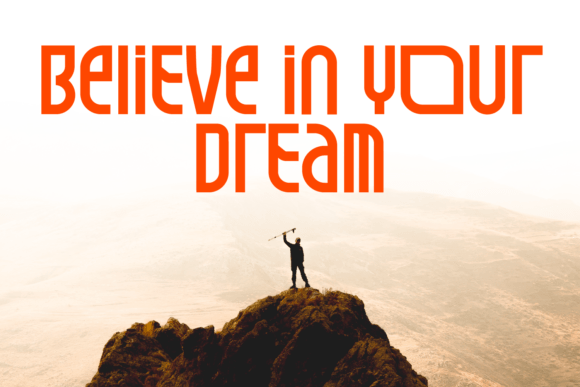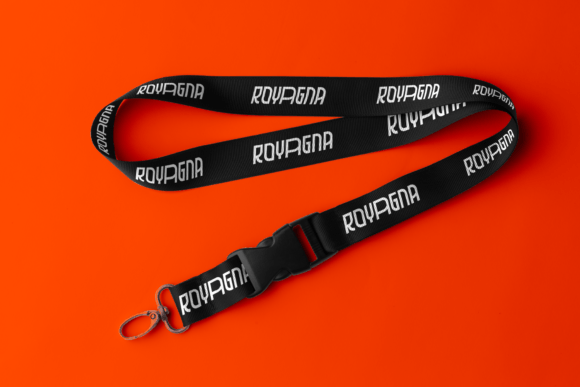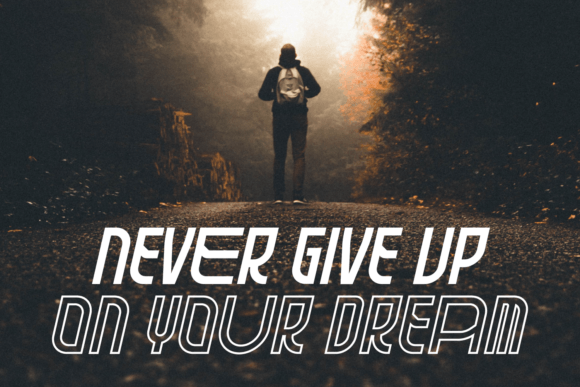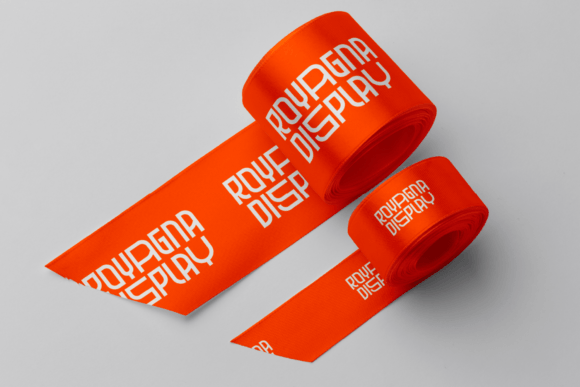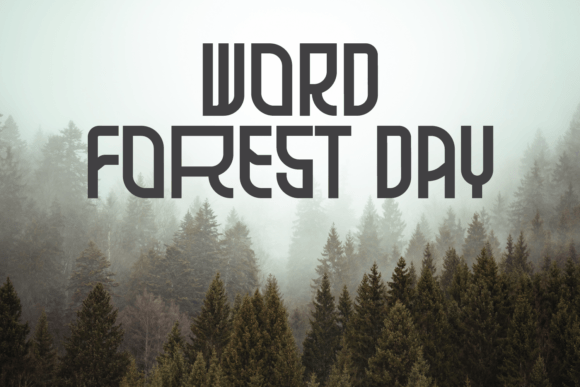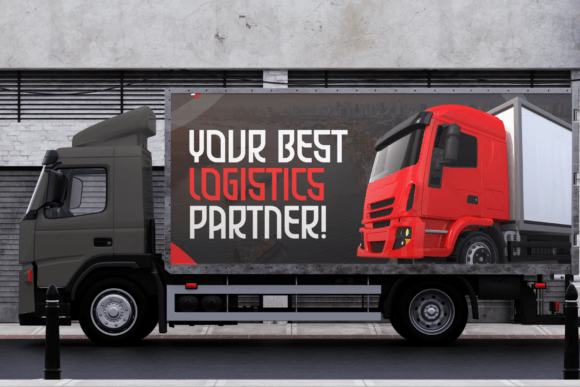
Introduction to Royagna Font
Have you ever found yourself stuck on a creative project, desperately searching for the perfect font to bring your vision to life? I know I have. There’s nothing quite like the thrill of discovering that elusive design resource that elevates your entire project. For designers, a great font can make all the difference between a good design and a great one.
Enter the Royagna Font, a stunning display font that’s sure to take your creative projects to the next level. With its cool, modern look, this font is perfect for logos, branding, invitations, stationery, wedding designs, social media posts, and so much more. And the best part? It’s PUA encoded, meaning you can access all of the glyphs and customize it to your heart’s content.
Whether you’re working on a high-quality design project or just need a free download to spice up your social media posts, the Royagna Font is an invaluable addition to any designer’s toolkit.
Key Features of Royagna Font
• High-quality design resource ideal for creative projects, offering a unique and stylish touch.
• Designed for versatility, Royagna Font is suitable for use in a variety of creative projects, from digital media to print materials.
Honest Review: Royagna Font
As a designer, I’m always on the lookout for high-quality design resources to elevate my creative projects. Recently, I had the chance to try out the Royagna Font, and I must say it’s been a game-changer.
Here’s what I love about the Royagna Font: ✨ It’s incredibly versatile, making it perfect for a wide range of design projects. ✨ The font is highly customizable, allowing me to tweak the style to fit my specific needs. ✨ And the best part? It’s a free download, making it accessible to designers of all levels.
However, I did encounter a few limitations: ⚠️ The font doesn’t support transparent backgrounds, which can be a bit of a hassle for designers who need to work with complex layouts. ⚠️ Additionally, the font may not be suitable for extremely large or small font sizes, which can affect readability.
Overall, I’m really impressed with the Royagna Font. Its high quality and customizability make it a valuable addition to any designer’s toolkit. While it’s not perfect, its strengths far outweigh its limitations, making it a great choice for designers looking for a reliable and versatile font.
• Perfect for a wide range of design projects
• Highly customizable
Royagna Font
How to Get the Most Out of Royagna Font
To get the most out of Royagna Font, consider the following tips: use it in combination with other high-quality design elements, experiment with different font sizes and colors, and don’t be afraid to try out new and creative uses for the font.
Royagna Font is a versatile design resource that can be used in a variety of creative projects, including logos, graphics, presentations, and documents. It’s also a great resource for free download, making it accessible to designers of all levels.
Alternatives to Royagna Font
Great Vibes Font is a high-quality, elegant script font perfect for creative projects that require a touch of sophistication. It features a transparent background, making it ideal for overlaying text on images or videos. When to use: Wedding invitations, luxury branding, and high-end marketing materials. Compared to Royagna Font, Great Vibes Font has a more refined and polished look, making it suitable for more formal designs.
Pacifico Font is a beautiful, modern script font that works well for a variety of design projects. It’s a great resource for designers looking for a high-quality font with a transparent background. When to use: Travel brochures, restaurant menus, and event invitations. Compared to Royagna Font, Pacifico Font has a more relaxed and casual feel, making it perfect for designs that require a friendly and approachable tone.
Yes, the Royagna Font supports transparent backgrounds, making it perfect for use in designs that require a subtle and elegant look. To achieve this, simply use the font with a transparent PNG or GIF file, and adjust the background to your desired color or image.